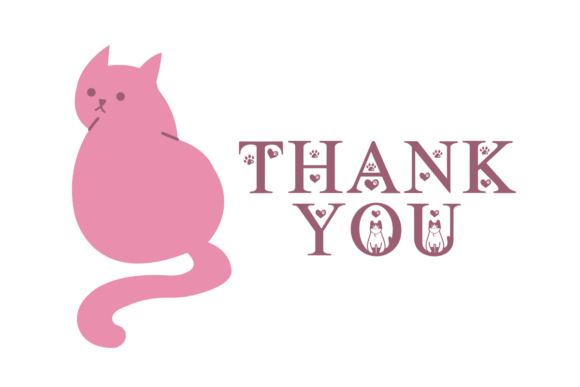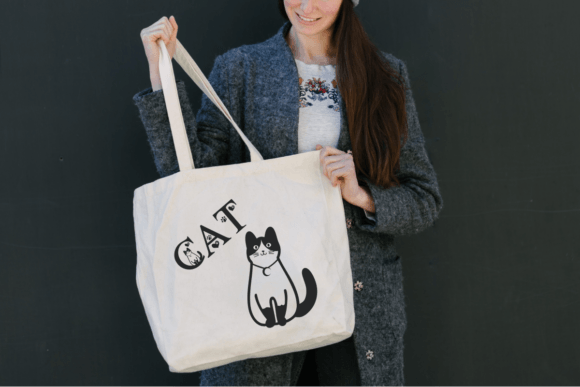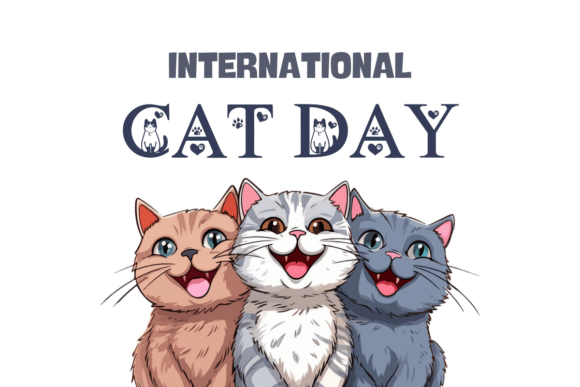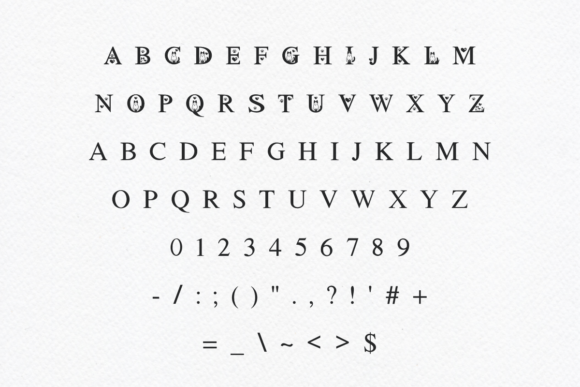
The Purrfect Font: A Deep Dive into Cat Love Font
I’ll never forget the time I was working on a cat-themed greeting card project, and I just couldn’t find the right font to match the playful, whimsical vibe I was going for. That was until I stumbled upon the Cat Love font. It was love at first sight! The adorable feline elements and decorative flair instantly elevated my design, and I knew I had found the perfect match. In this article, we’ll explore the world of Cat Love font, and I’ll share with you my honest review, practical tips on how to use it, and some awesome alternatives to try.
What I Love About Cat Love Font ✨
- Unique feline elements that add a touch of playfulness to any design 🎉
- Perfect for a variety of projects, from notes and diaries to greeting cards and social media posts 📝
- Easy to read and understand, even in smaller sizes 🔍
- Supports OpenType features, glyphs, and stylistic alternates for added versatility 🌈
- Works beautifully on a range of materials, including mugs, shirts, and stationery 🛍️
While Cat Love font is an amazing addition to any design, there are a few things to keep in mind:
- Some of the feline elements can be a bit quirky and might not work well in very formal or professional designs 🤔
- As with any decorative font, it’s essential to use it in moderation to avoid overwhelming the design ⚠️
The Story Behind Cat Love Font
According to the designer, Cat Love font was inspired by a beloved feline friend who brought joy and comfort to their life. The designer wanted to capture the playful, affectionate spirit of their cat in a font that would bring a smile to others’ faces. And so, Cat Love font was born – a delightful blend of feline charm and creative flair.
| Is Cat Love font suitable for body text? | While Cat Love font is beautiful, it’s best used in moderation and in larger sizes. For body text, a clearer font might be more suitable. |